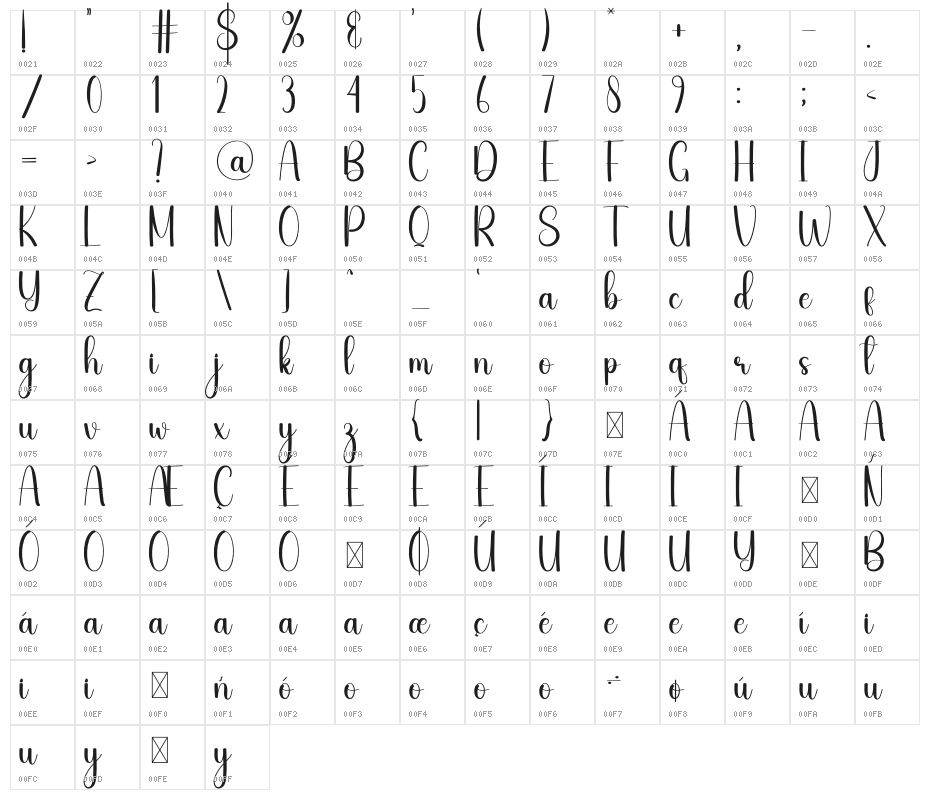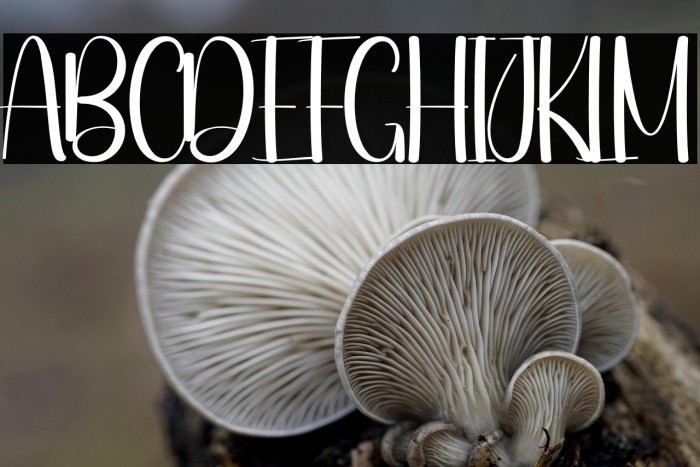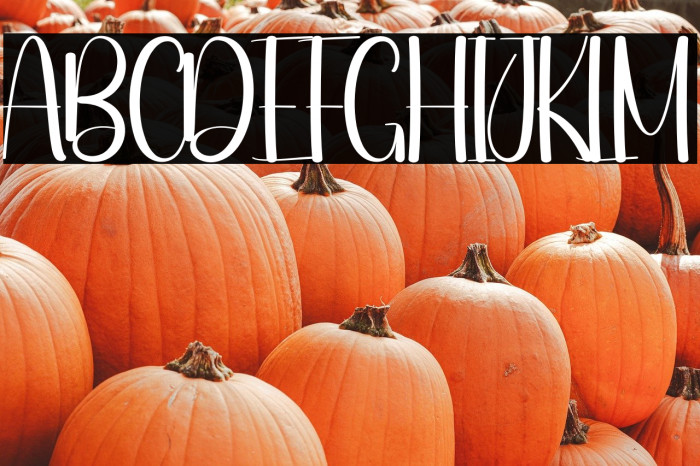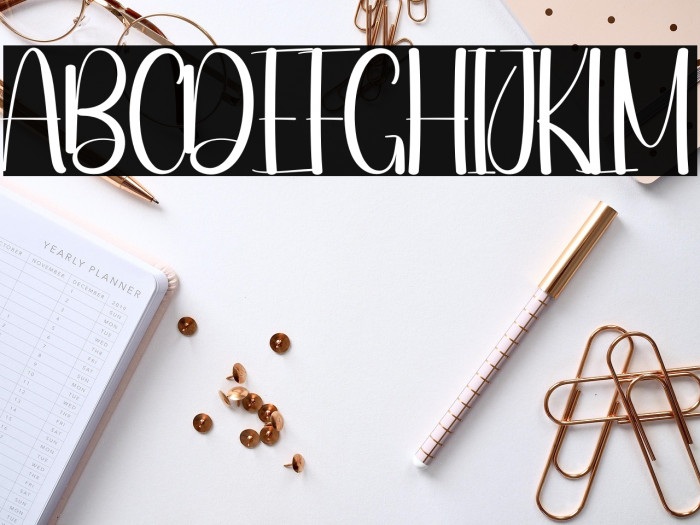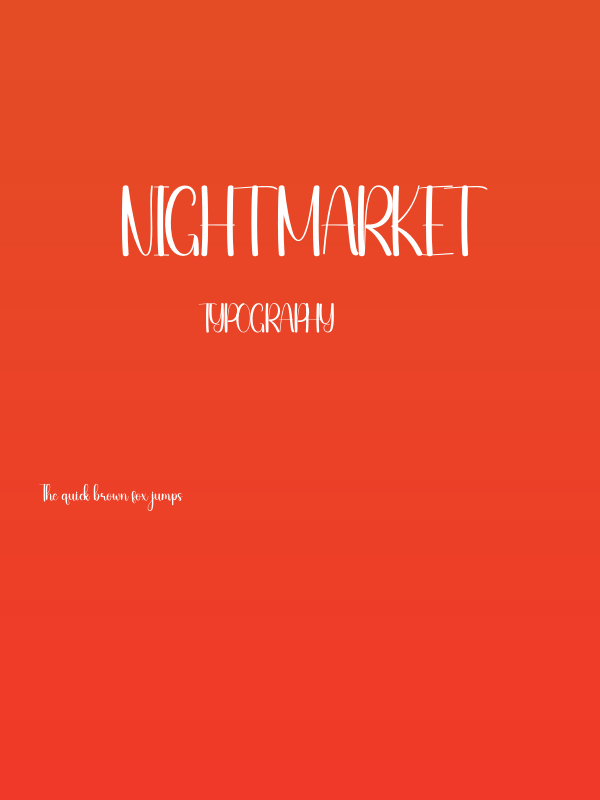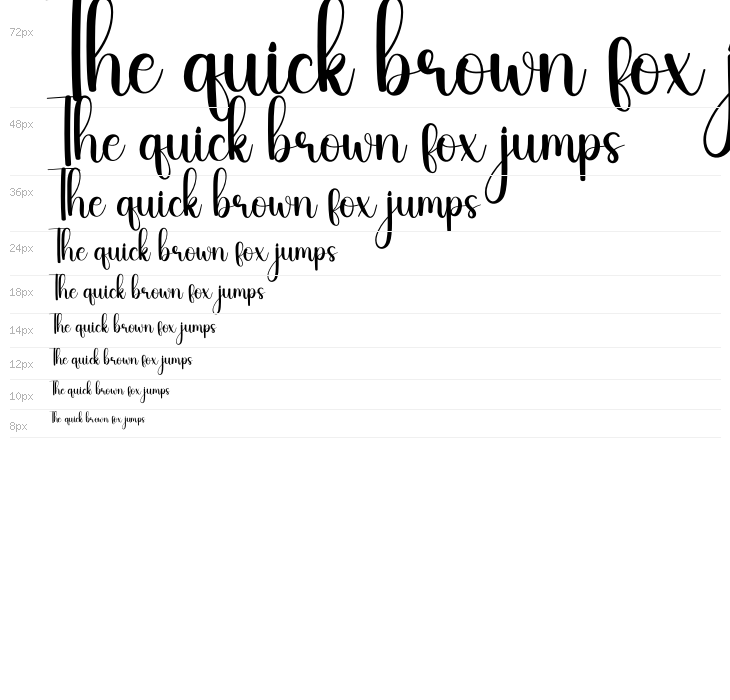
Night Market Font
Night Market Description
This font features a playful and artistic script style with a handwritten appearance. The uppercase letters are tall and slender, with a whimsical flair that adds a touch of elegance. The lowercase letters are more fluid, with some characters featuring loops and swirls that enhance its decorative nature. The numbers and special characters maintain the same artistic style, making them cohesive with the alphabet. This font is ideal for projects that require a personal and creative touch, such as invitations, greeting cards, and branding materials.
| Proposed Projects | Ideal for invitations, greeting cards, branding materials, and creative projects. |